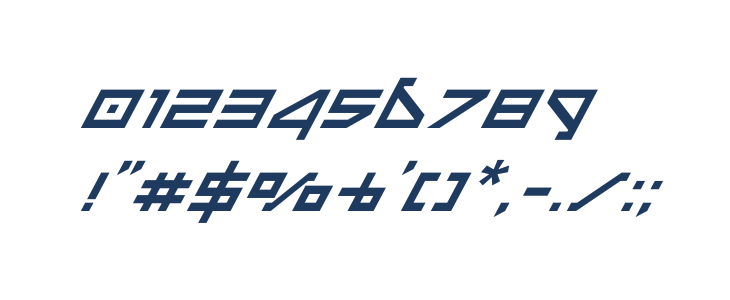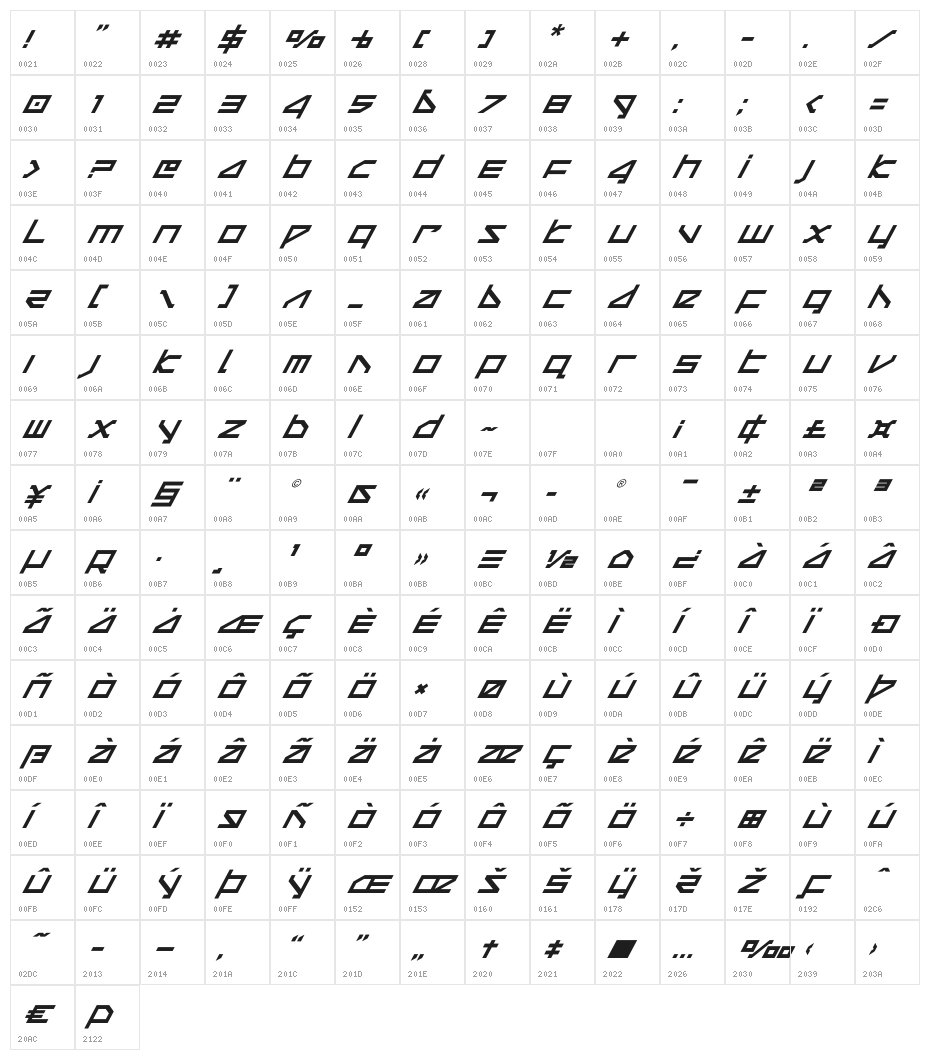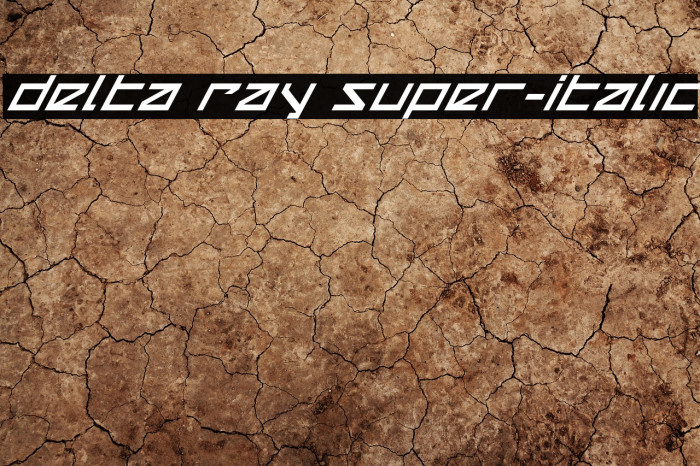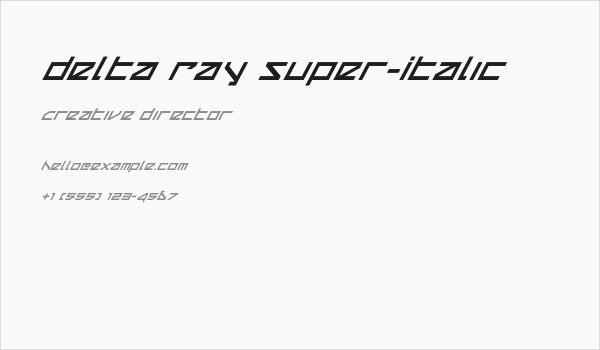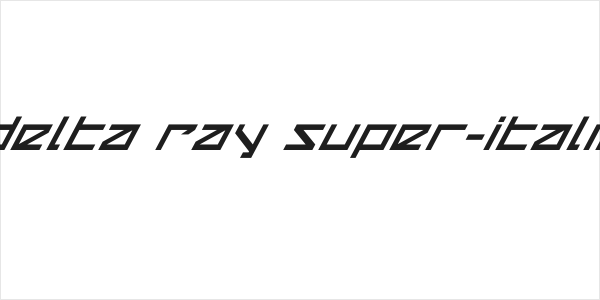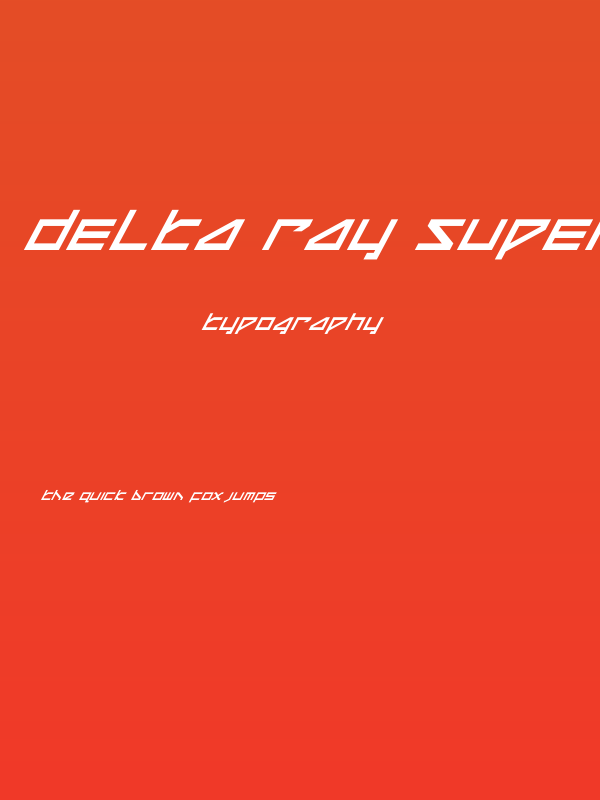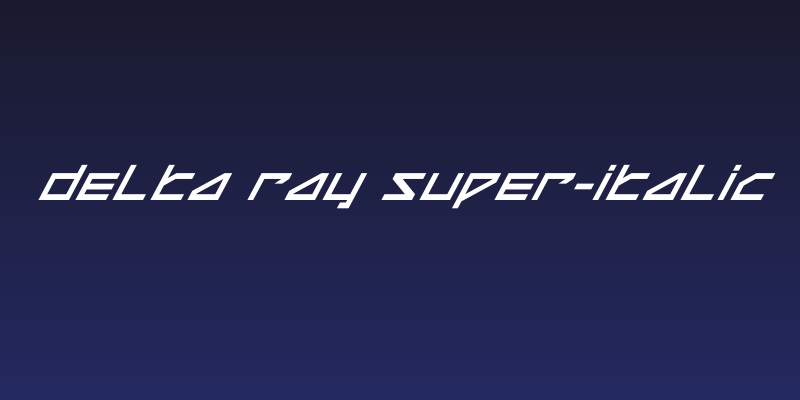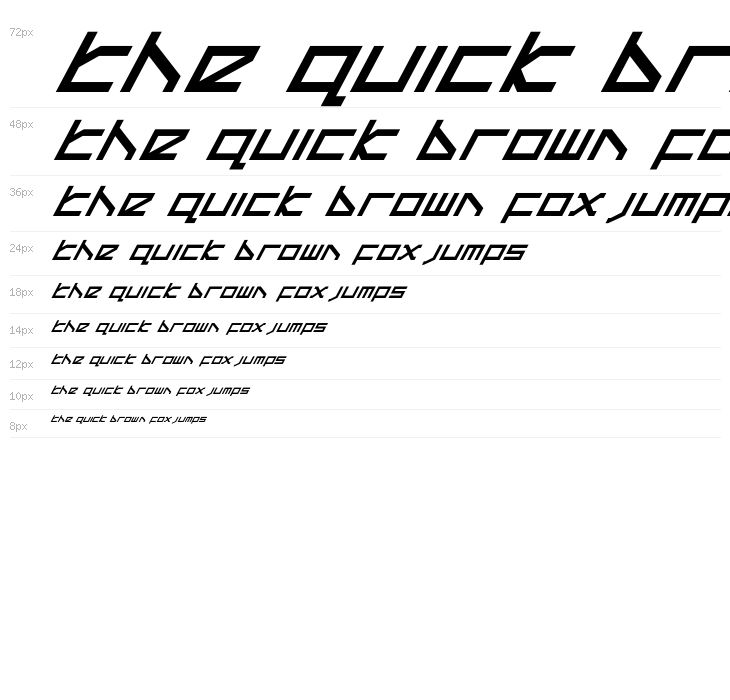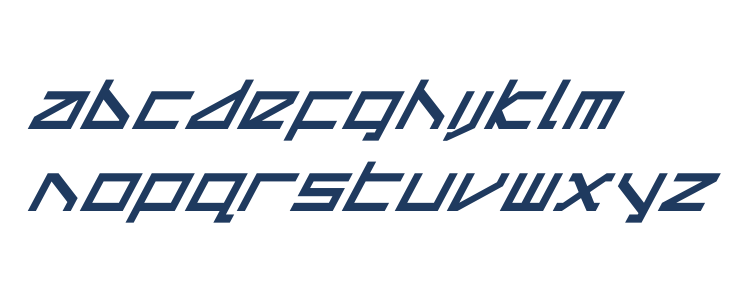
Delta Ray Super-Italic Font
Delta Ray Super-Italic Description
This font features a dynamic and futuristic design, characterized by sharp angles and a forward-leaning italic style. The letters are crafted with a sense of motion, making them appear as if they are in a constant state of speed. The geometric shapes and clean lines give it a modern and edgy look, suitable for projects that require a bold and energetic aesthetic. The uppercase and lowercase letters maintain a consistent style, with the lowercase offering a slightly more compact form. Numbers and special characters are designed to match the overall angular theme, ensuring a cohesive appearance across all text elements.
| Proposed Projects | Ideal for sci-fi themed designs, technology branding, video game titles, and dynamic posters. |